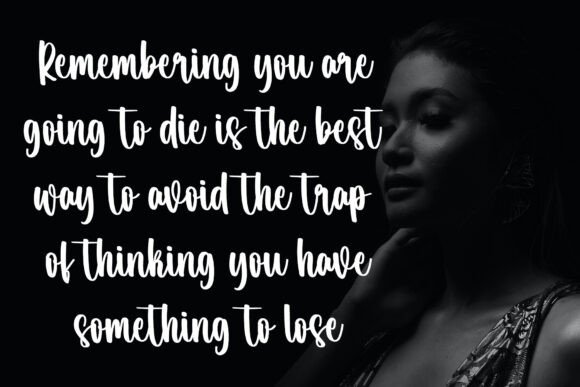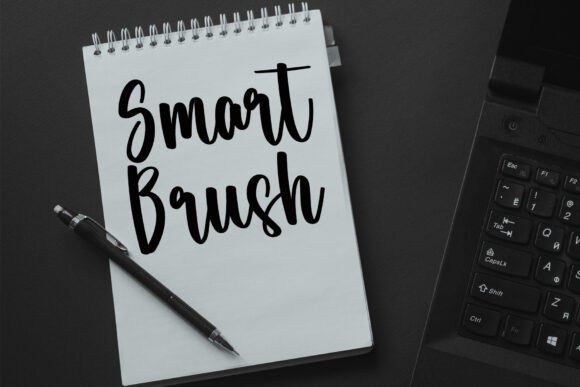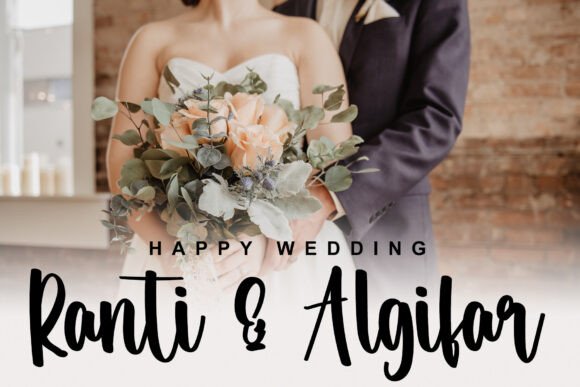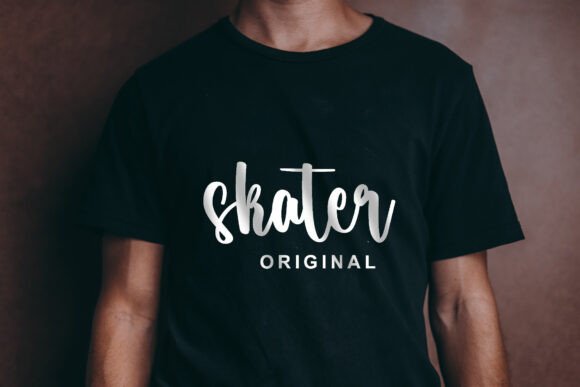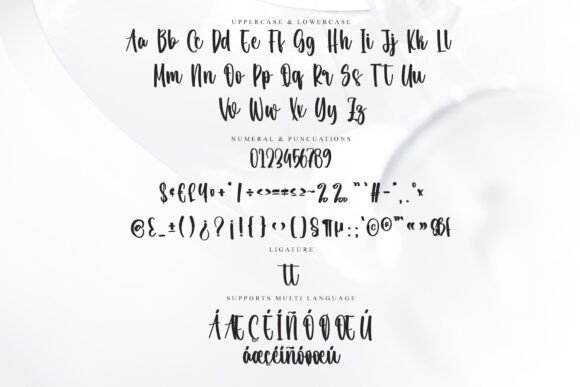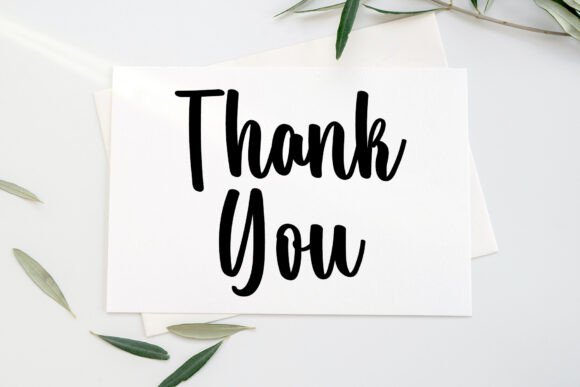
Introducing December Recovery Font: Elevate Your Designs with Elegance
Are you a designer, crafter, or DIY enthusiast looking for a font that can add a touch of sophistication and whimsy to your projects? Look no further than the December Recovery Font, a magical handwritten font designed to bring elegance and charm to your designs. In this article, we’ll dive into the features and benefits of this beautiful font, and explore how it can help you turn your creative ideas into stunning works of art.
What is December Recovery Font?
December Recovery Font is a carefully crafted handwritten font that exudes elegance and refinement. With its flowing script and delicate lettering, this font is perfect for adding a touch of sophistication to your designs. Whether you’re creating social media graphics, crafting DIY projects, or designing marketing materials, December Recovery Font is the perfect choice for anyone looking to add a dash of whimsy and charm to their work.
Features of December Recovery Font
So, what makes December Recovery Font so special? Here are just a few of its standout features:
- Handwritten with love: December Recovery Font is a true handwritten font, crafted with care and attention to detail to ensure that every letter and every word is a work of art.
- Elegant and refined: With its flowing script and delicate lettering, this font is perfect for designs that require a touch of sophistication and elegance.
- Versatile: Whether you’re designing for social media, crafting DIY projects, or creating marketing materials, December Recovery Font is the perfect choice for any creative project.
Uses for December Recovery Font
So, how can you use December Recovery Font in your designs? Here are just a few ideas to get you started:
- Instagram graphics: Add a touch of elegance to your Instagram feed with December Recovery Font. Use it to create stunning social media graphics that showcase your brand’s personality and style.
- DIY projects: Whether you’re creating handmade cards, gift tags, or other DIY projects, December Recovery Font is the perfect choice for adding a touch of whimsy and charm.
- Marketing materials: Use December Recovery Font to create eye-catching marketing materials, such as brochures, flyers, and posters, that showcase your brand’s elegance and sophistication.
- Stationery and invitations: Create beautiful stationery and invitations with December Recovery Font, perfect for weddings, parties, and other special occasions.
Why Choose December Recovery Font?
So, why should you choose December Recovery Font for your designs? Here are just a few reasons:
- Unique and eye-catching: December Recovery Font is a truly unique and eye-catching font that will set your designs apart from the crowd.
- Elegant and sophisticated: This font exudes elegance and sophistication, making it perfect for designs that require a touch of refinement.
- Versatile: This font can be used in a wide range of creative projects, from social media graphics to DIY projects and marketing materials.
In conclusion, December Recovery Font is a magical handwritten font that can add a touch of elegance and whimsy to your designs. With its flowing script and delicate lettering, this font is perfect for designers, crafters, and DIY enthusiasts who want to create stunning works of art. Whether you’re designing for social media, crafting DIY projects, or creating marketing materials, December Recovery Font is the perfect choice for anyone looking to elevate their designs with elegance and sophistication.